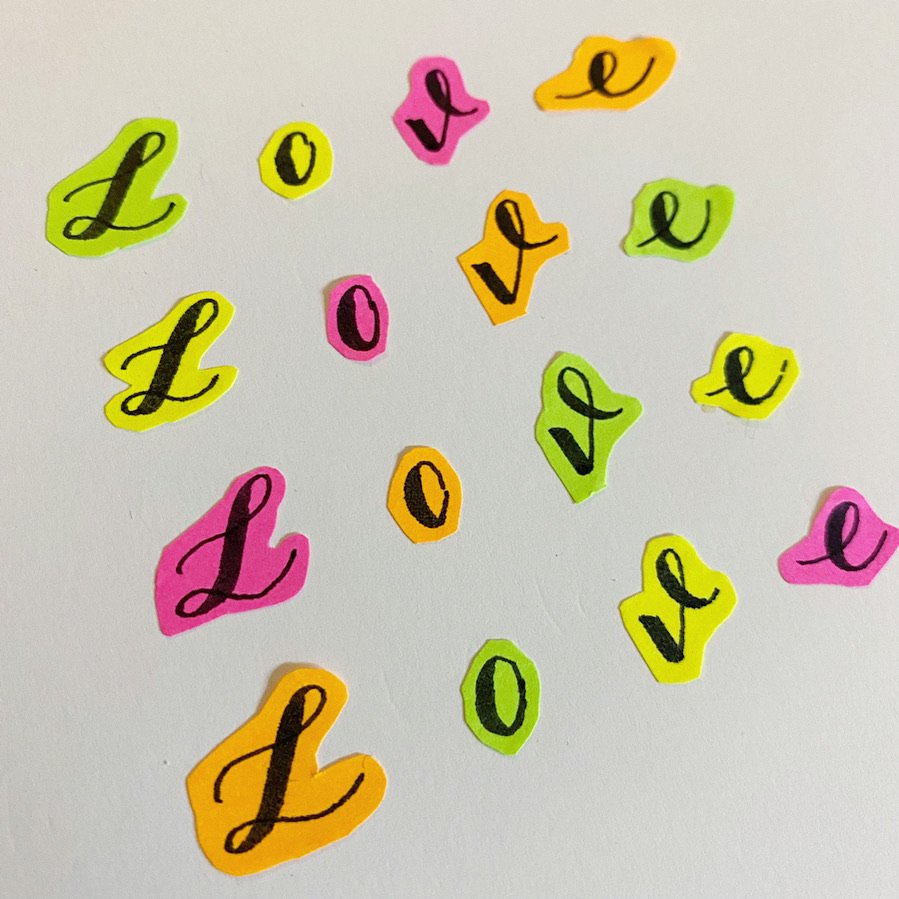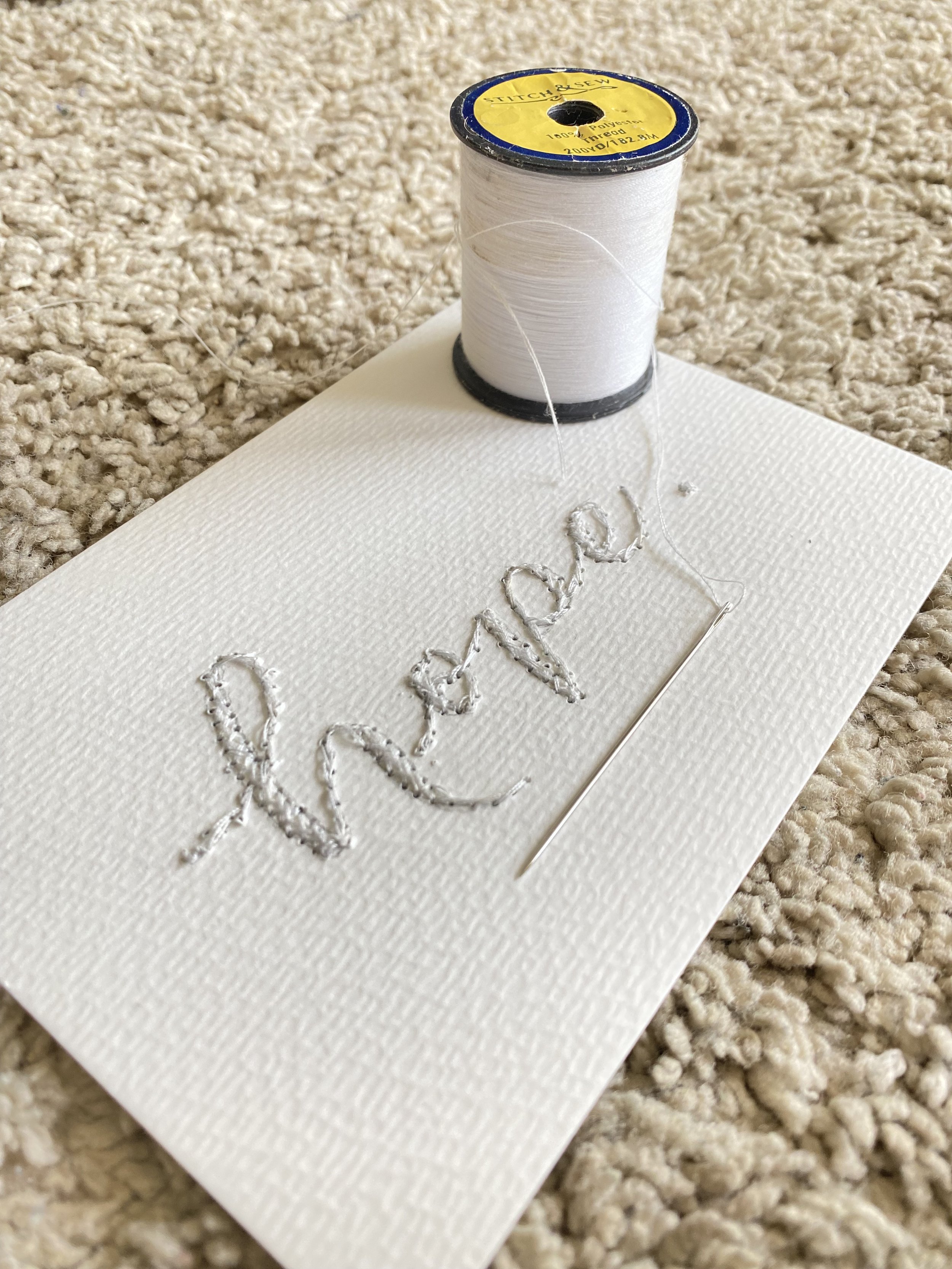
SPOILER: It’s not all about how you’re holding the pen…
You’ve done the workshop, you’ve got the pens, you know the basics… now where do you go from here? I know the feeling. You’re at a calligraphy cross-road…creatively speaking! Do you keep practicing? Why isn’t it improving? Shall you try learning something else instead?
Well shake off the ‘I’m just not artistic’ voice and the ‘I’ll never get good at this’ saboteur and dive into these FIVE new mindsets, tips and tricks, ideas and inspo to get your calligraphy improving.
“Be curious not critical” with your calligraphy
This is something I say to lots of my students in workshops. You don’t want to be unkind to yourself, but the pressure to be perfect can easily make lead you down a constant stream of negative talk.
What kills creativity? Constant discouragement. It sucks the joy out of the playful side of creating. Getting things wrong is just an opportunity to adjust and improve.
A big side note: anything you create by hand should be imperfect. That is the nature, and beauty, of hand-created work.
Seek the joy through the process, not the perfection in the piece (that will come as it’s meant to be).
Top tips:
Notice when you say something negative (out loud or in your head)
What can you say or think differently next time?
What can you learn from what didn’t work?
What improvements can you already see?
Consistency: with your calligraphy and your practice
Consistency. This is a big – DOUBLE WHAMMY.
Firstly, in brush pen calligraphy our eyes enjoy seeing consistent shapes and strokes, transitions and flourishes. So practicing the consistency with your drills, letters and words can make all the difference.
Tips:
Repeat basic drills often
Challenge yourself away from the guidelines, perhaps just move to lined paper, and then plain
Notice the opportunity for consistency: Ps and Rs (ascending petals) / a, d, g, o (ovals)…and many more.
Secondly, finding a consistent practice can really help. Perhaps your creative energy is best in the morning, at lunchtime or in the evening. Perhaps you carve out 10 mins a day, 1 hour a week, or join a monthly class that books in that time for you and keeps you practicing.
Play and try new things
My style is only one way – and I have a few styles I love to use up my sleeve. But I also love to learn new ways, and try out other styles. We’re always improving!
Buy the books, watch the videos, follow the instagrammers…there’s plenty of variations of letters, designs and flourishes to inspire and try out.
Most people adopt a mixed-influence style which becomes their own that they can evolve and use consistently. Like your signature dish!
Remember: trying new calligraphy doesn’t stop you improving. It unlocks and reinforces the techniques you’re already learning and practicing. By being playful with it, encourages new learnings to embed into your practice without resistance.
Top tips:
Pop an upbeat playlist on
Have a comedy TV programme in the background
Use colours, or colour paper
Experiment with pens or other items!
Connect and share with others
Creating alone can be a wonderful time of solitude. Calming and mindful it’s a fantastic tool to ease stress and anxiety. But sharing your journey, and your progress with others allows you to:
Celebrate your calligraphy
Notice how far you’ve come
Keep you accountable - and practicing
Motivate you to do more
Inspire you to improve
Motivates others
Inspired others
Brings joy and hand created gifts to others
Gives you a sense of belonging*
In the Mindful Calligraphy Club, we not only share projects and progress, practice and plenty of questions… but we also chat all things stationery: from best pens, to printer paper and more!
Plan some projects, set deadlines
This one I share with caution – you don’t have to have a large project. In fact, you don’t have to have a project at all. It could simply be writing the days of the week everyday, or ‘shopping list’ on the top of a post it note. This repetition can improve your calligraphy fairly quickly (if you’re adopting good regular practice).
But if you if you enjoy projects, and work well to deadlines weave them in! Here’s some ideas:
Small calligraphy projects
Monthly Planner – write the month at the top
Weekly Planner – write the days of the week
Affirmation postcard – write 2-3 words on a card for you to pin up
Gift tags to add to a gift
Medium calligraphy projects
Create a self-care menu – write ‘Laura’s (replace with your name!) Self Care Menu’ at the top and add these sections:
Things that help me relax and feel calm
Things that help my body feel good
Things that keep my mind happy
Things that make me smile
Complete the sections in handwriting or calligraphy for a bigger project.
New year planner – write the year and planner title, plus all the months
Design and write a thank you card to someone
Affirmation postcard – write a short phrase to pin up, or give to someone
Larger calligraphy projects
Designs, write out your favourite lyrics/poem and frame it
Create your family tree in calligraphy
Personalise gifts (on the items, or on the wrapping)
Batch create birthday cards
Plan a dinner and create the place names in calligraphy (perhaps a menu and any dish labels if necessary too!)
Design a calligraphy mural for a wall (or local community project)
Try embroidering, lino cutting, or clay casting your calligraphy
The ideas are honestly endless…
For the deadlines – if you start a small or medium project, I’d say, finish it in one sitting. Most of those listed above shouldn’t take more than 15 mins for the small projects, and 30 mins for the medium ones. For the larger ones, you might take a few days/weeks to plan or design first, but you can plan in a date to finish and aim for to keep you on track, and actually complete it!